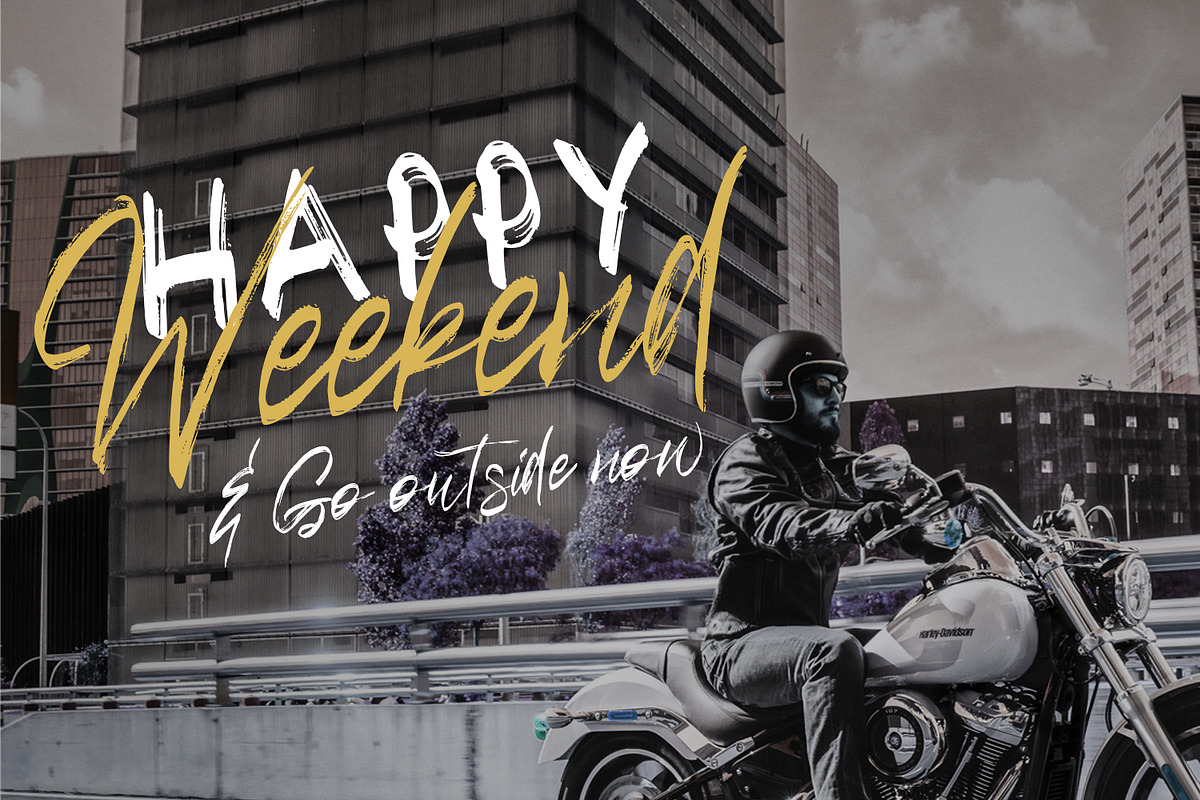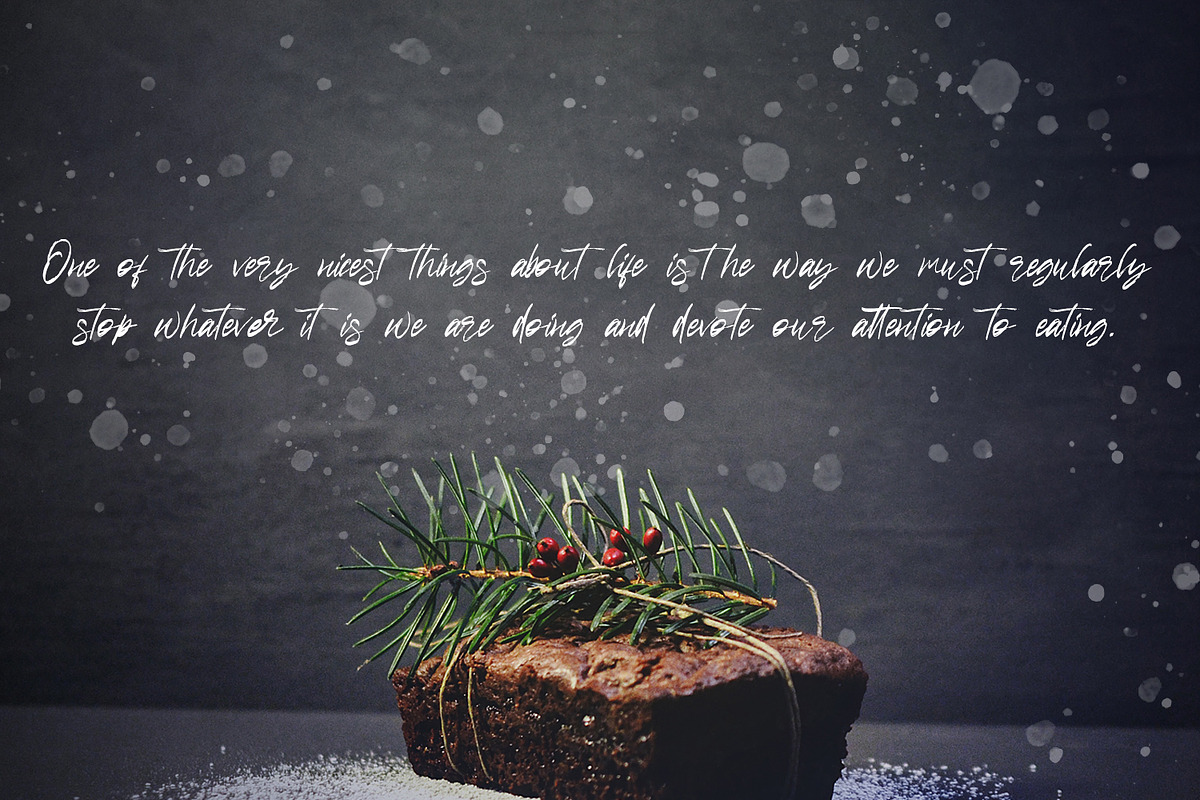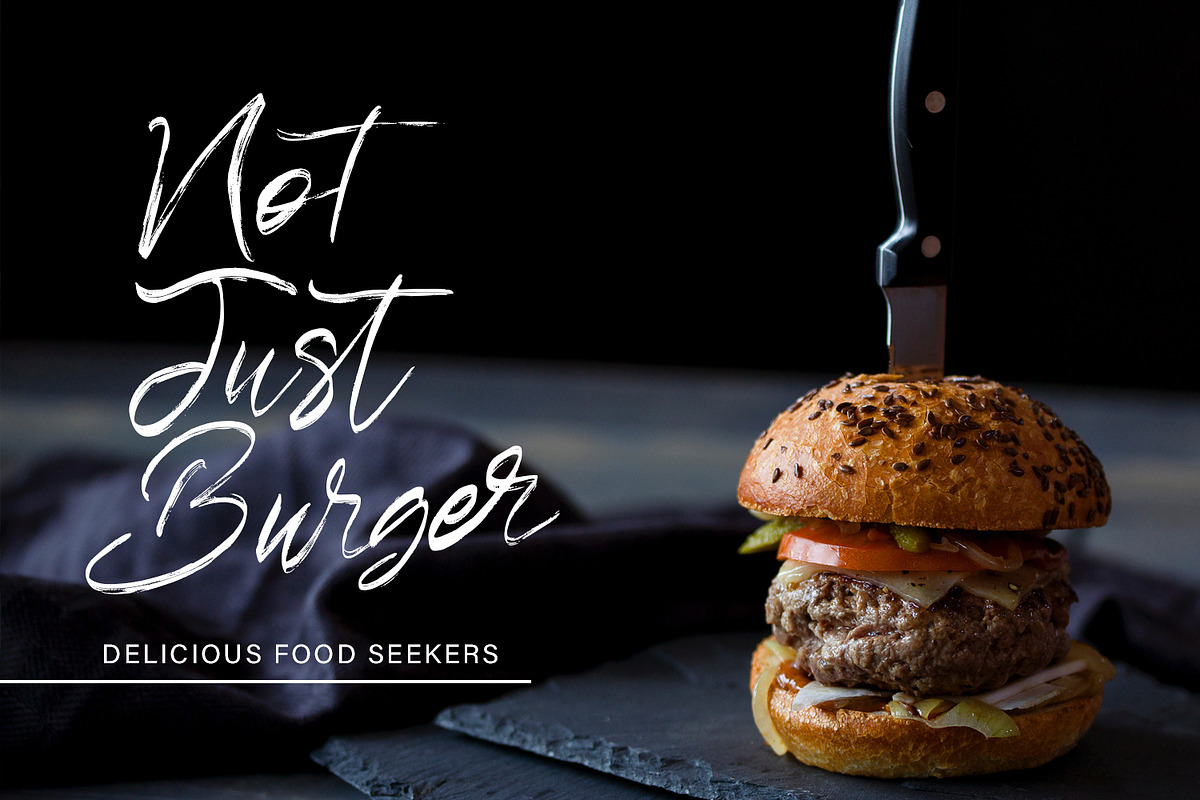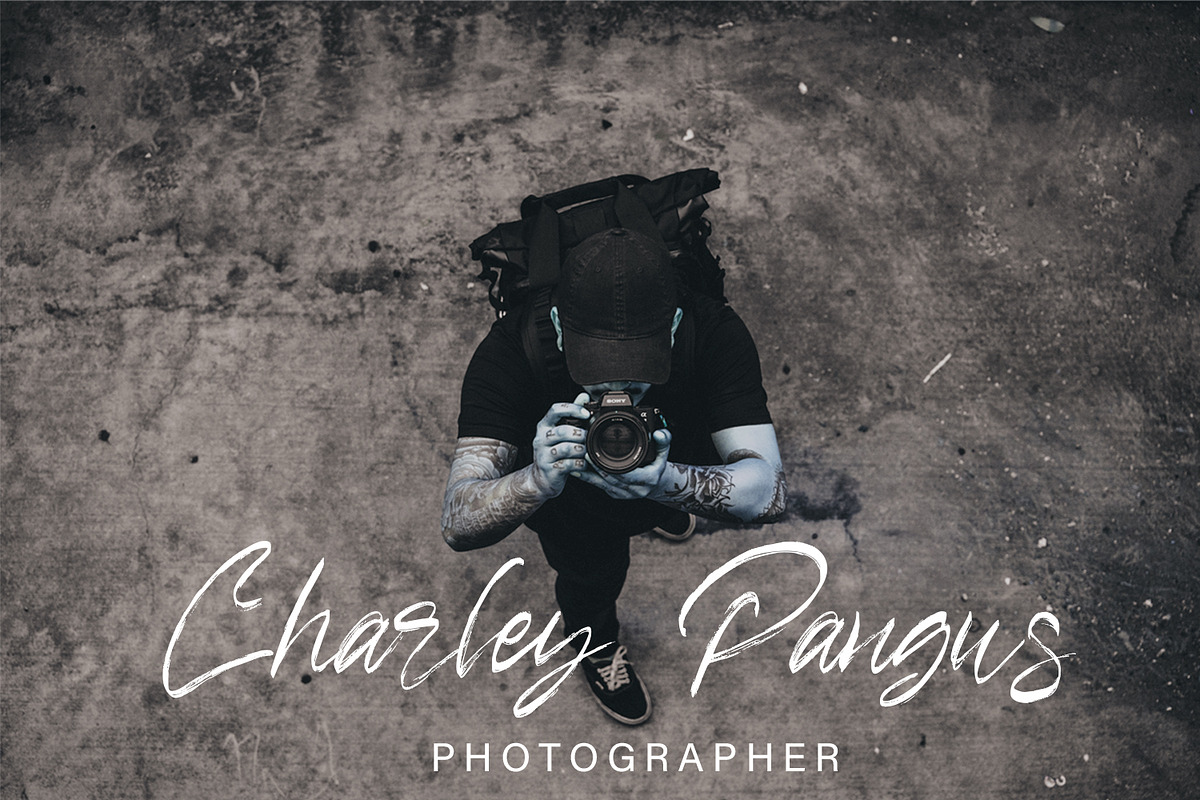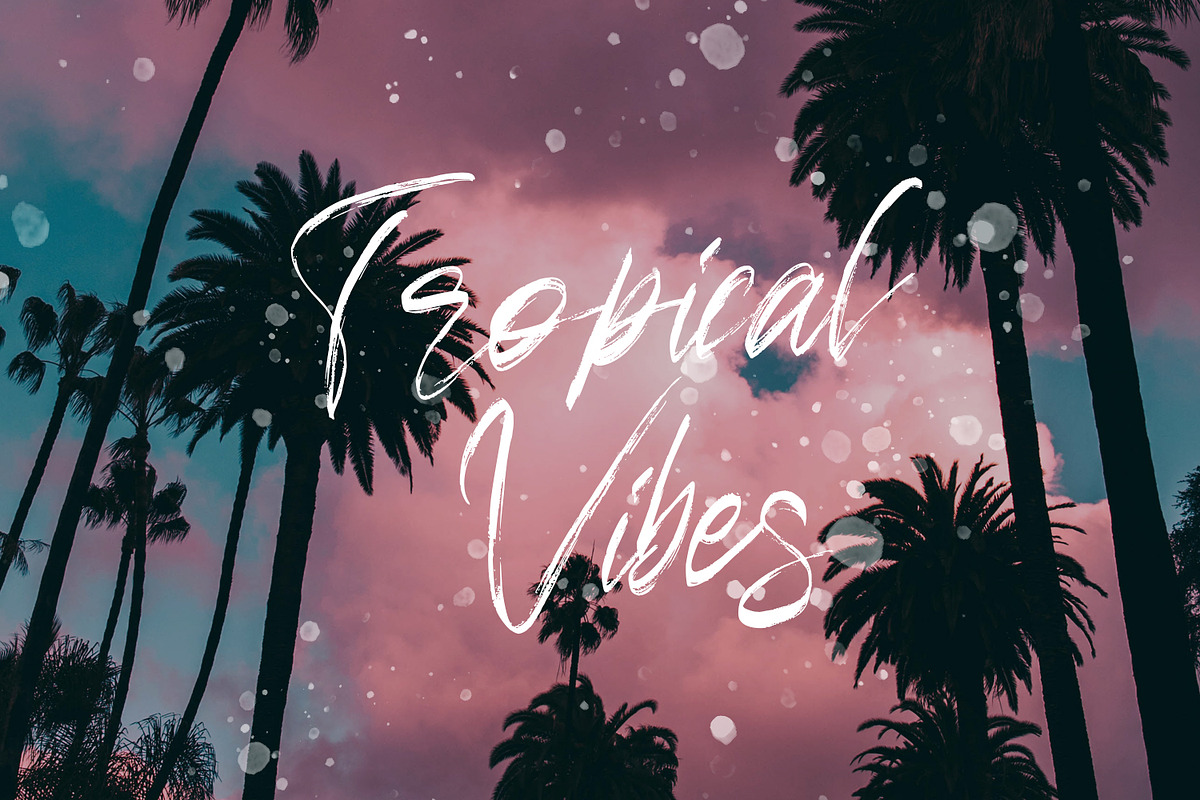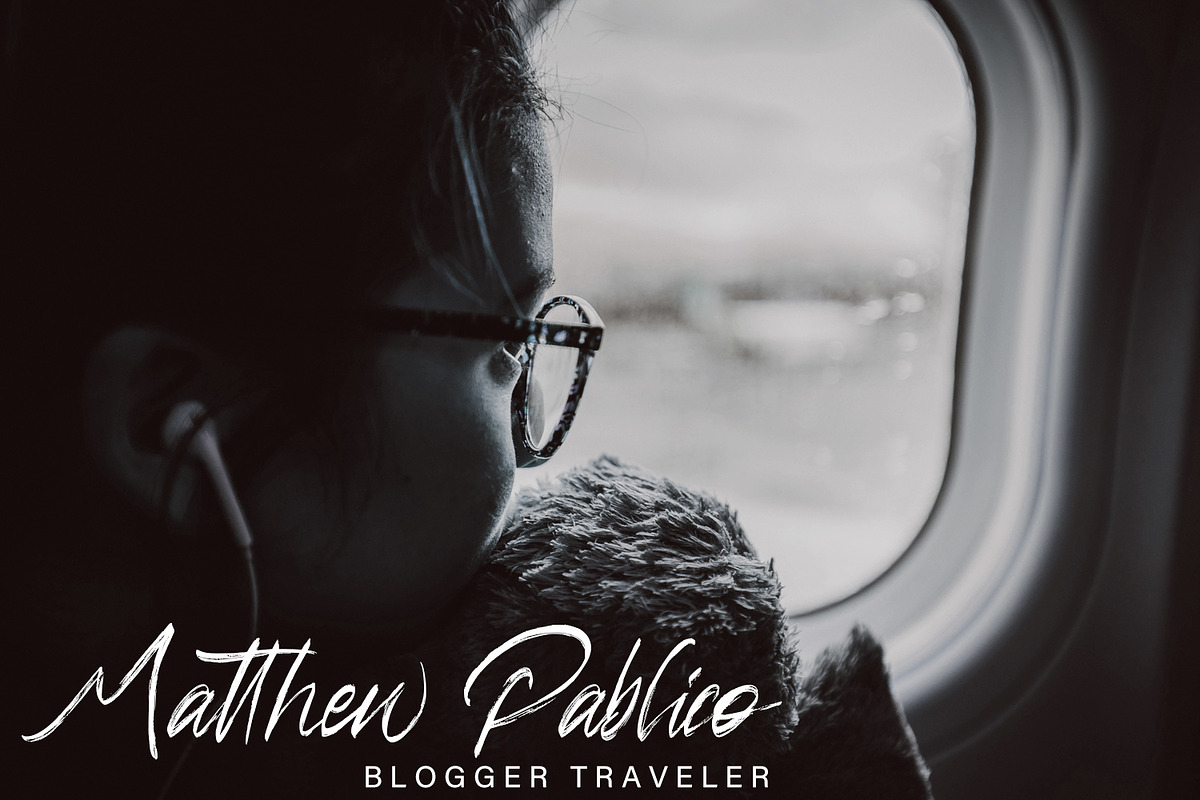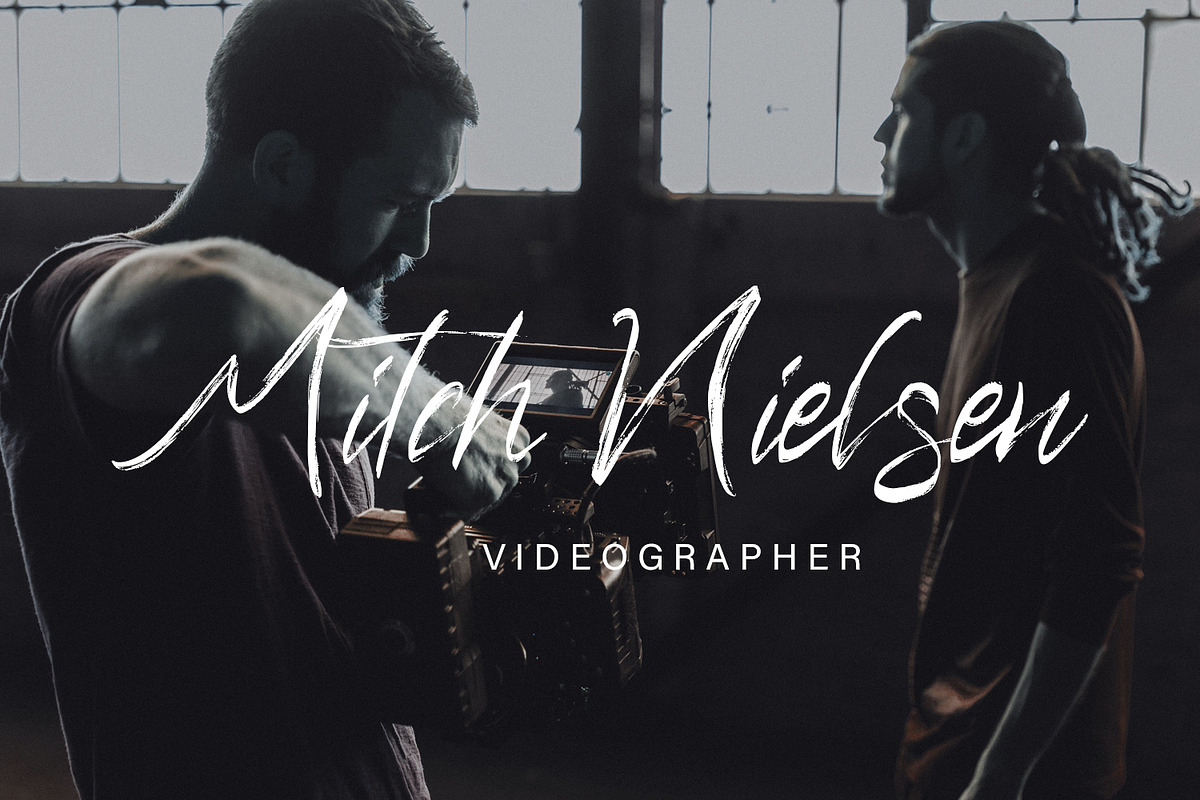
Nagasaki - Brush Font
Nagasaki - Brush Script Font is a font with distinctive handwritten characters perfect for branding projects, logos, wedding designs, media posts, advertisements, product packaging, product designs, labels, photography, watermarks, invitations, stationery, and any project who need handwritten dishes.
Why Nagasaki - Brush Font is worth a look
Nagasaki - Brush Font by Arendxstudio fits naturally into Branding, posters, packaging, typography.